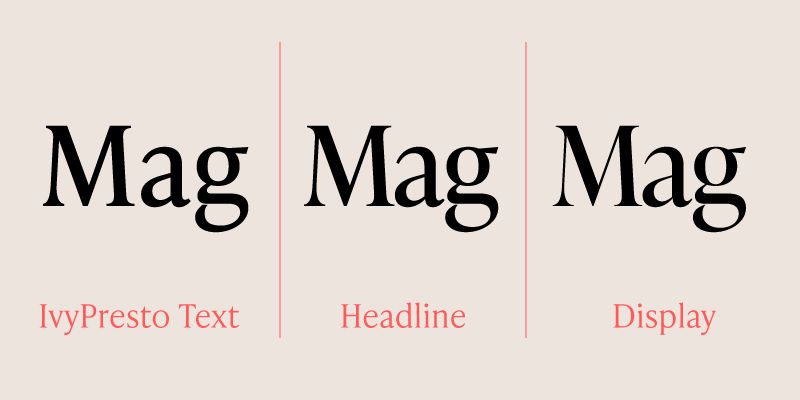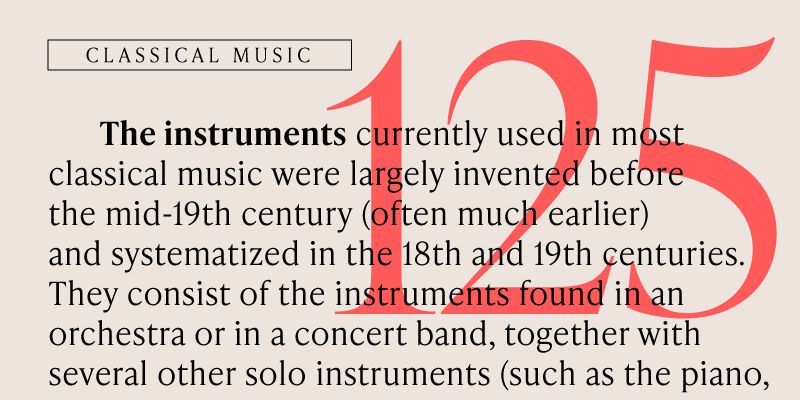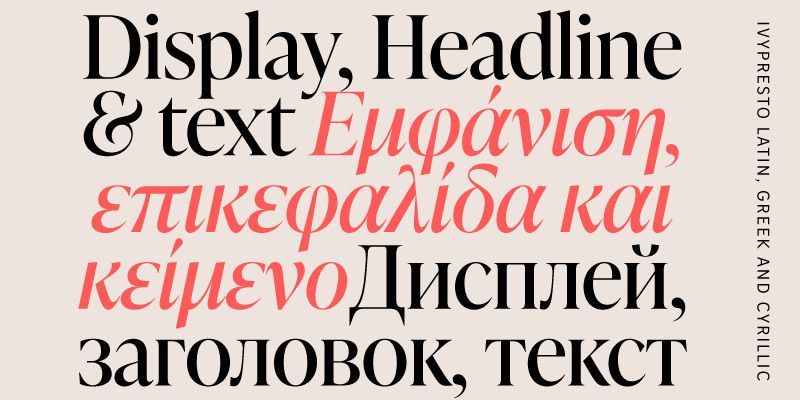
IvyPresto is an Old Style (or Garalde) family based on the works of Hendrik van den Keere. Its large x-height, sharp serifs, high contrast, and narrow proportions allow for good readability, making it flexible enough for all typographic settings.
IvyPresto comes in three optical sizes; Display, Headline, and Text, each with 5 weights in Roman and Italic. In May 2021, it was extended to include Cyrillic and Greek.
The Ivy Foundry is a type design studio that makes fonts that fit the purpose of every designer’s unique needs. As a graphic designer, Jan Maack created these typefaces in response to his own situational knowledge. Every family is for designers by a designer. Long text for a customer report? Display headlines in a newspaper? Labels and packaging for an in-house store brand? All of the families are versatile and not easily pigeon-holed. Based in Denmark, open since 2016.